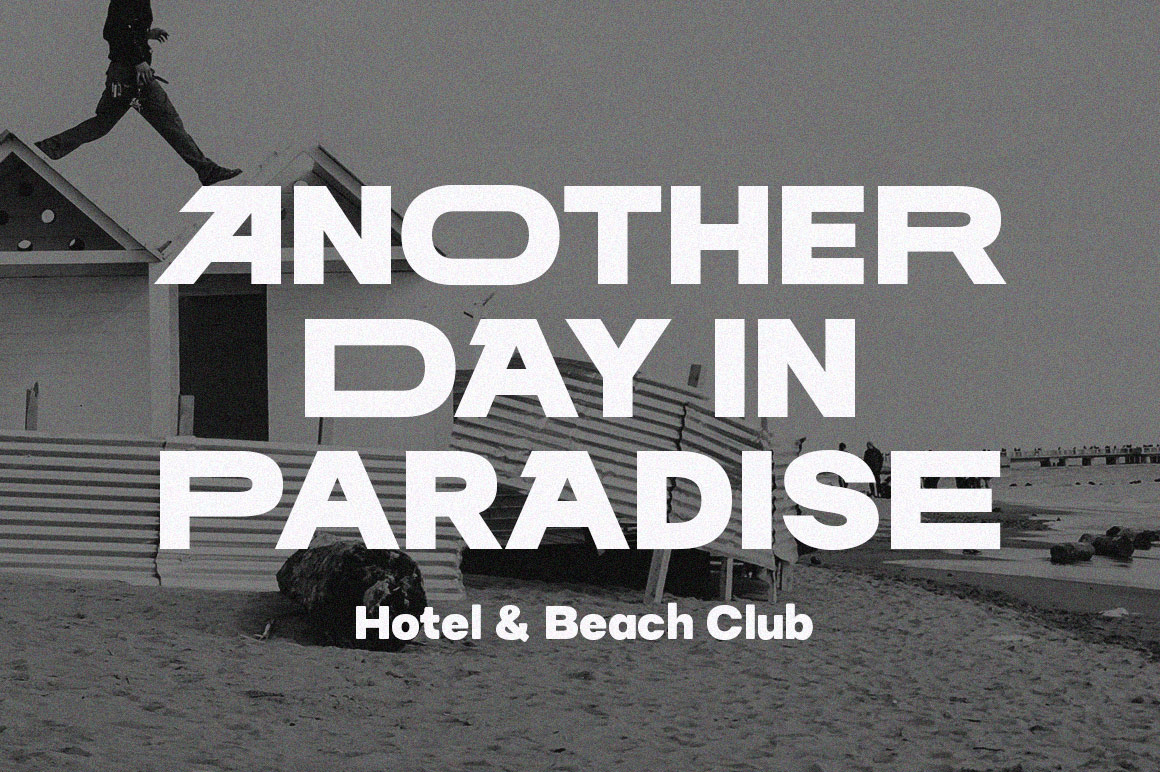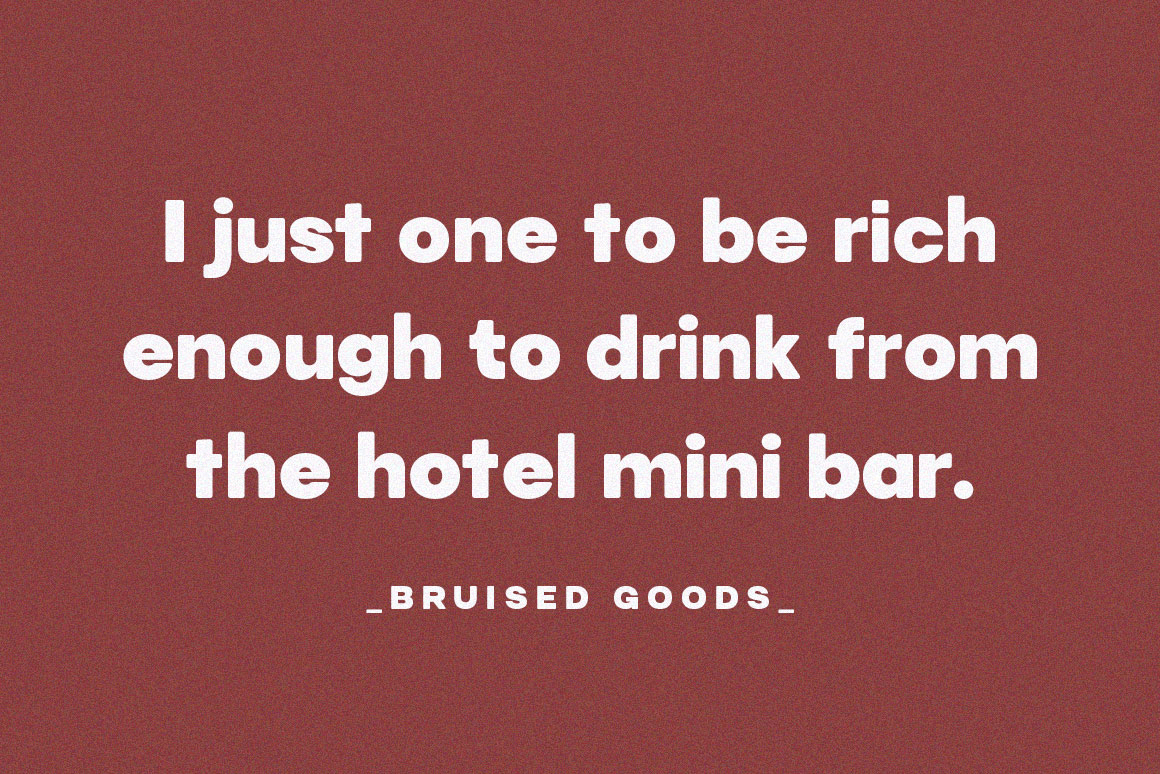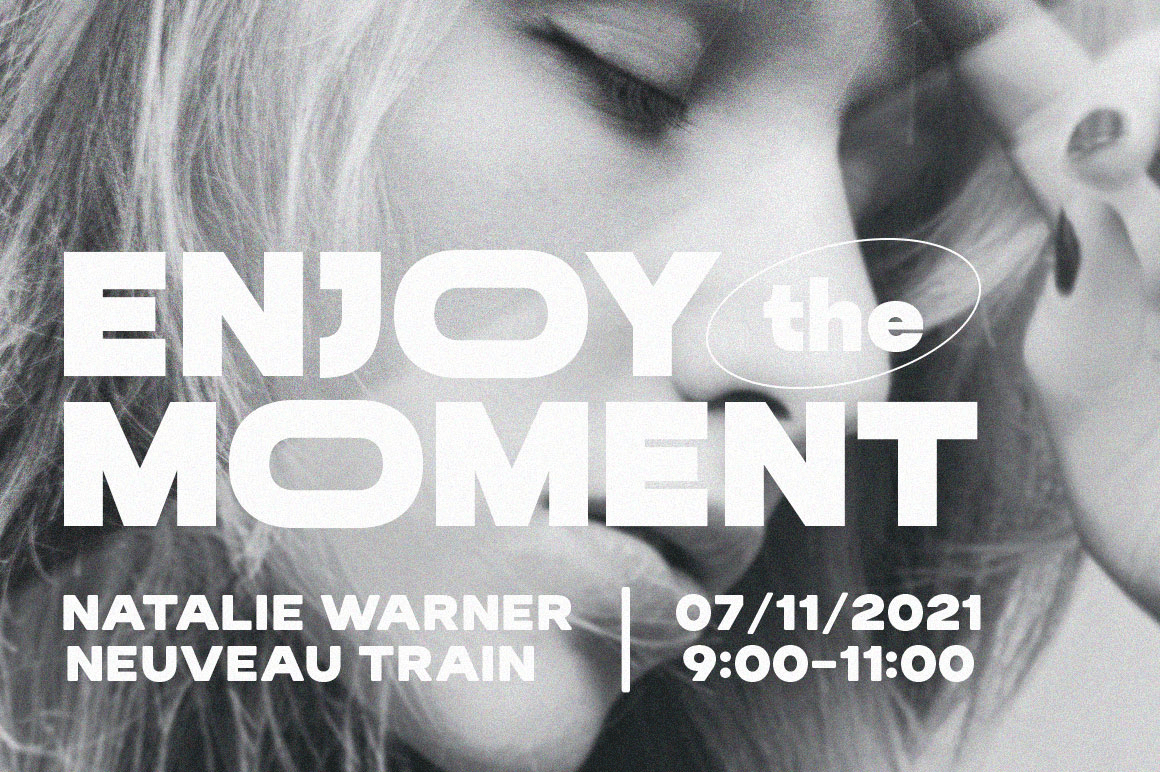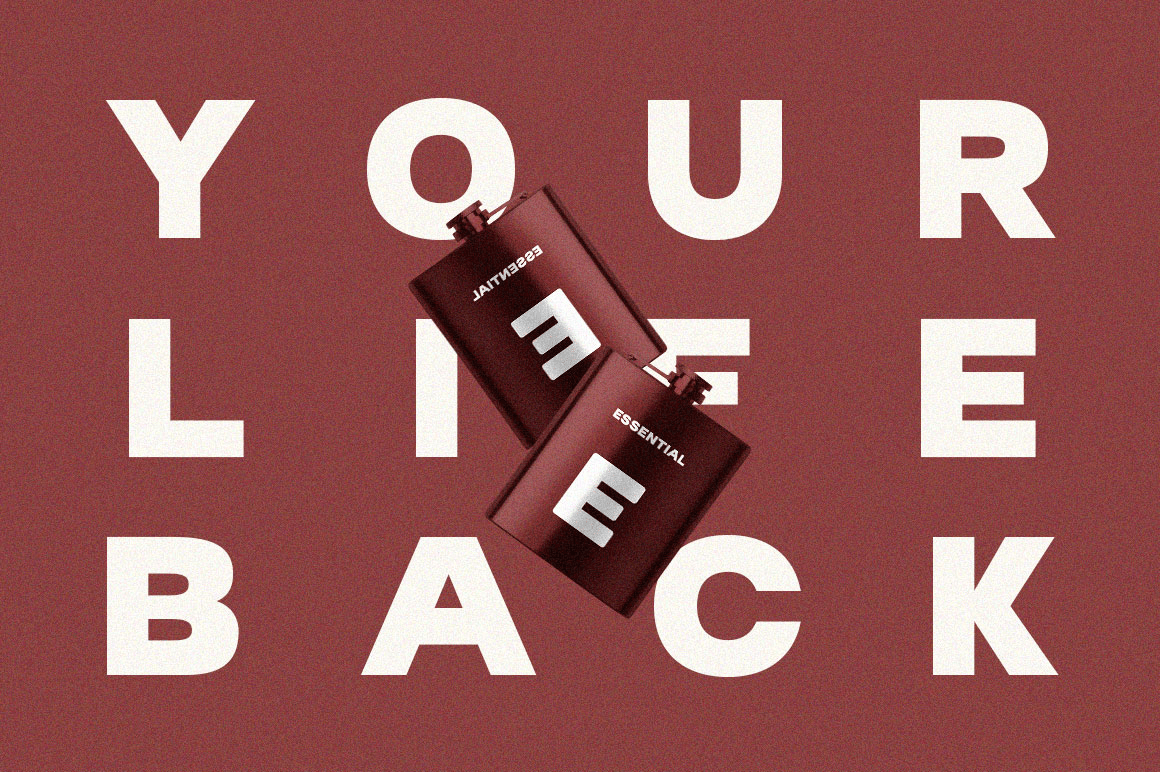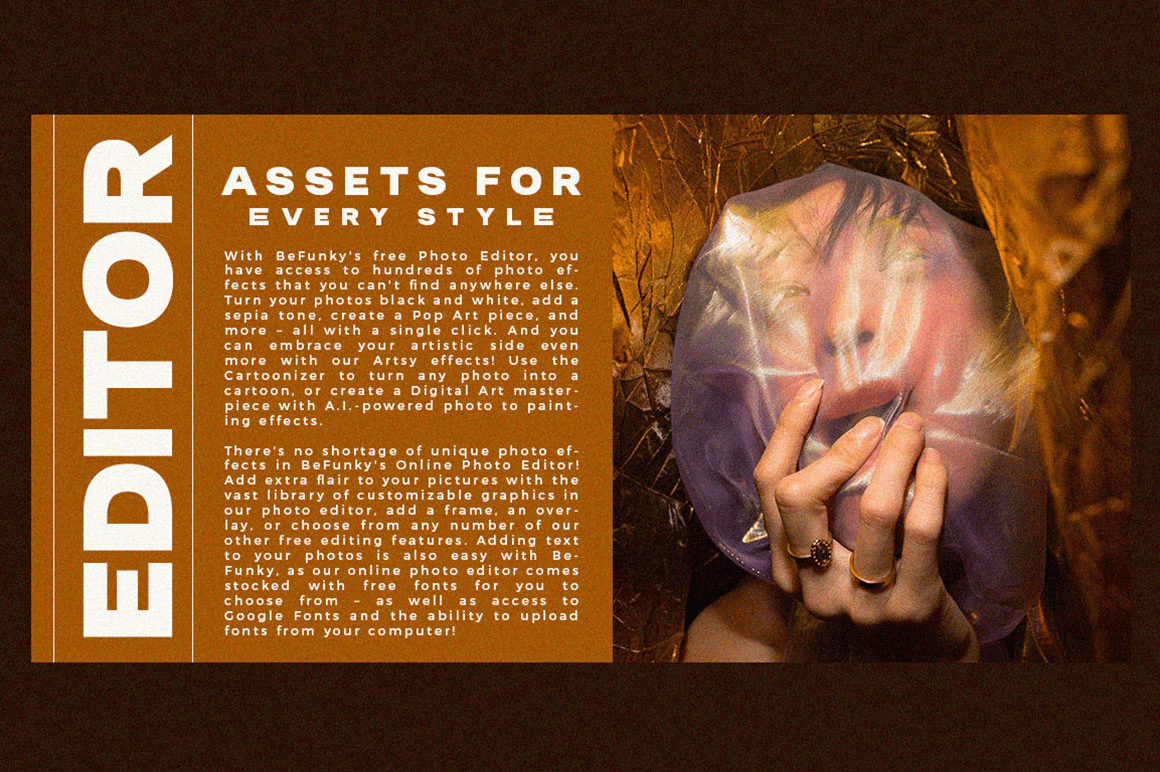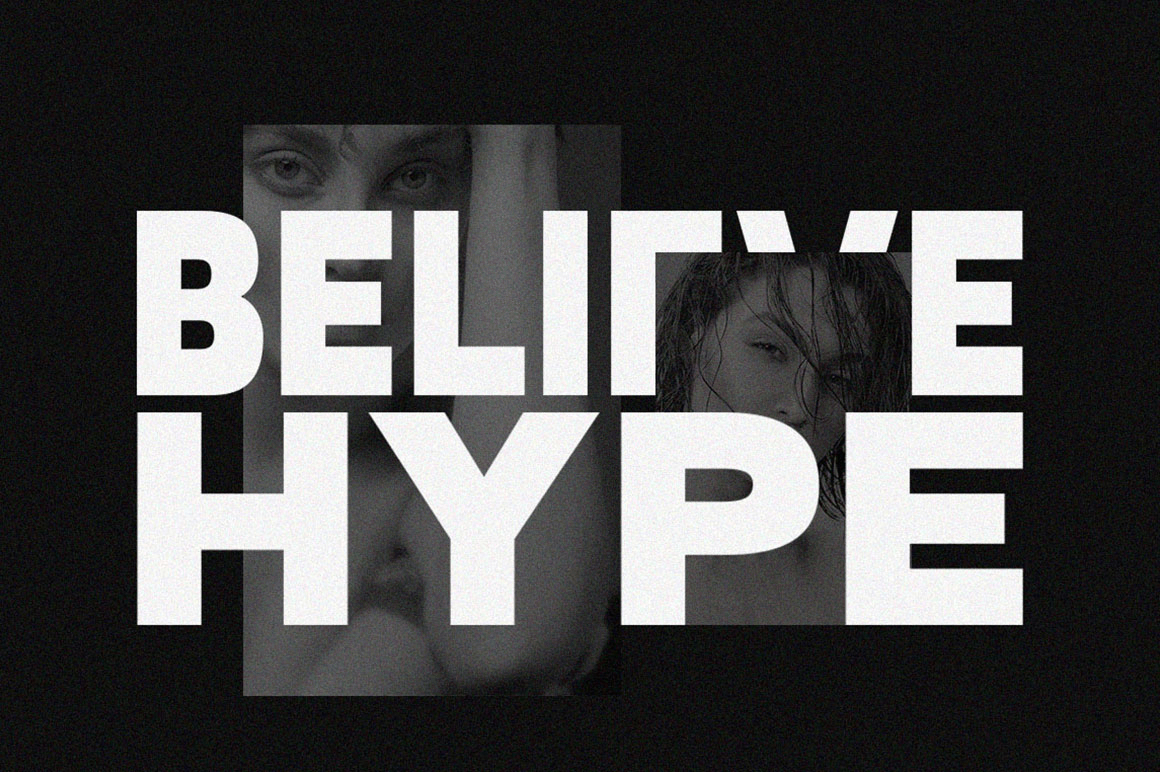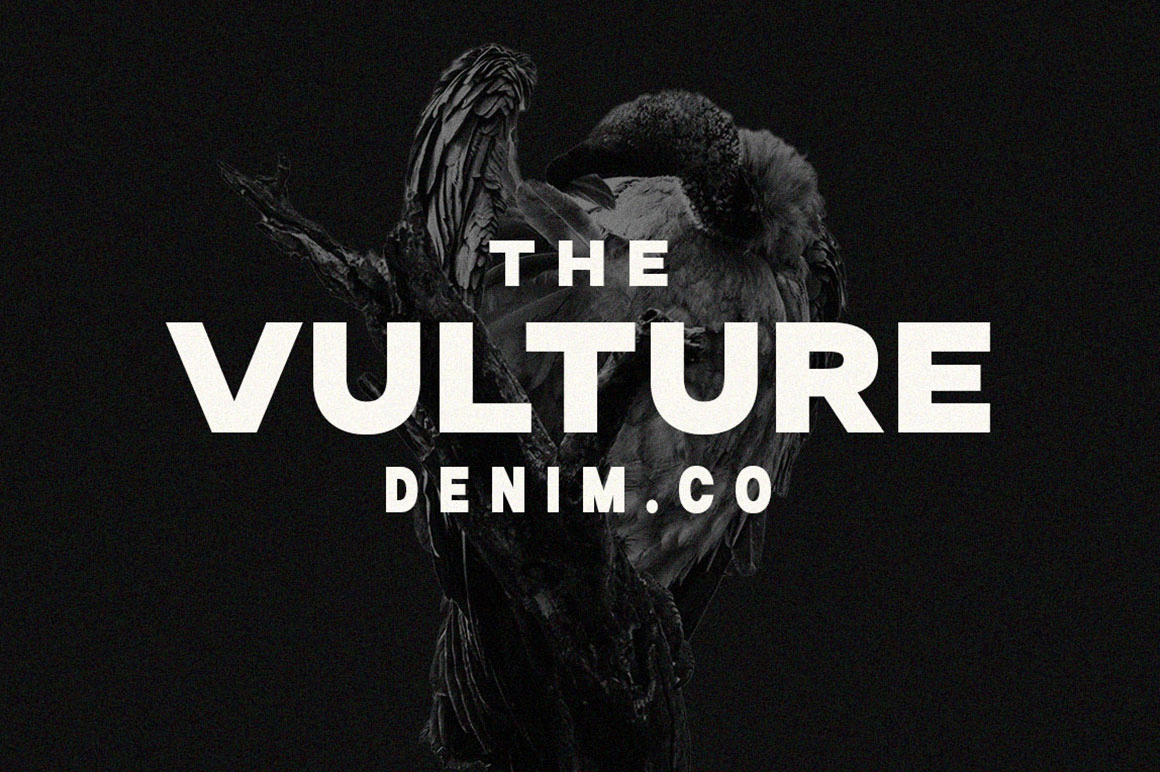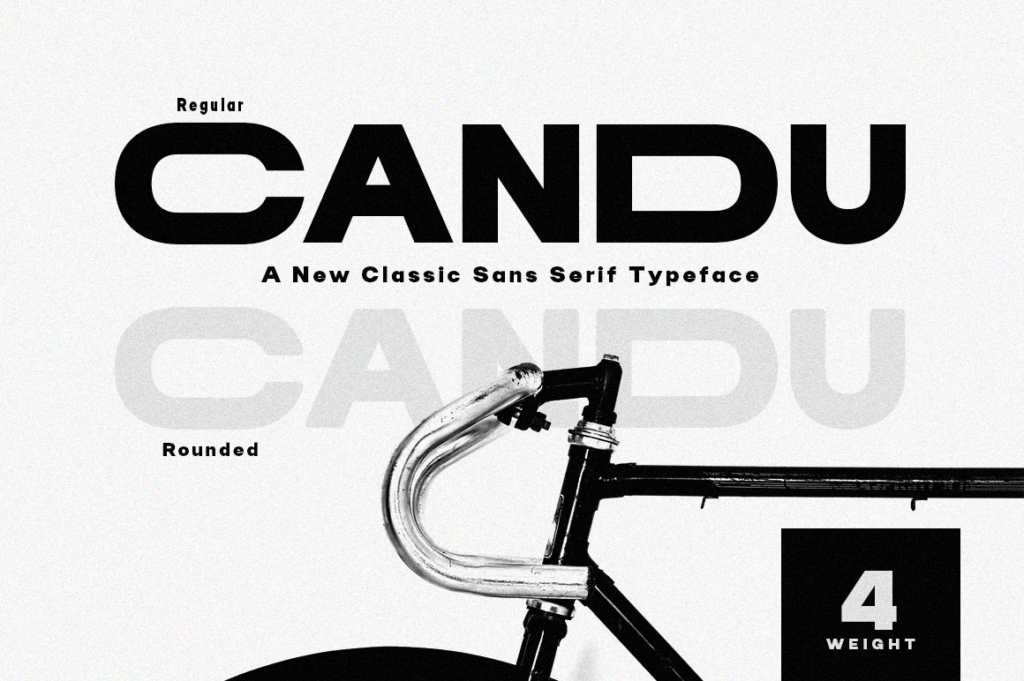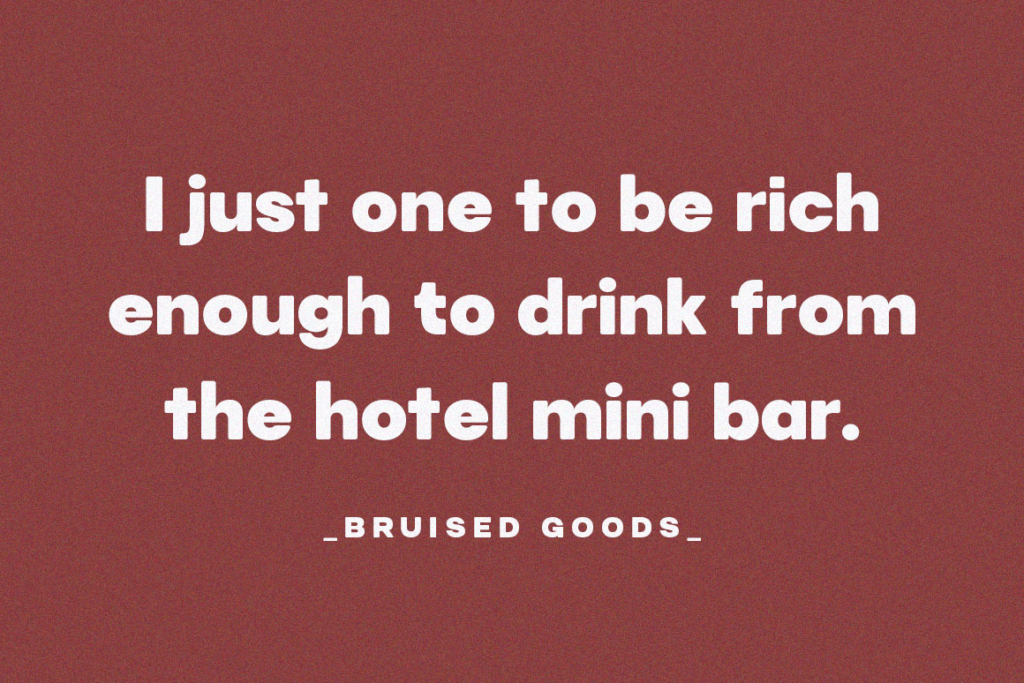
Candu
About Candu
Candu is a strong bold sans serif, with solid lines, paired with bold yet soft rounding. Candu will turn any creative idea into your true work of art! It\’s perfect for logotypes, signage, branding, apparel, posters, social media, headlines, titles, large…